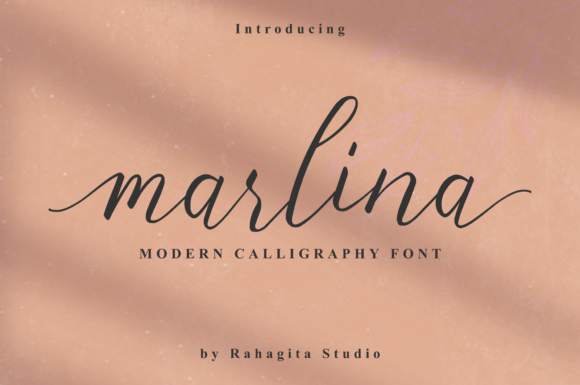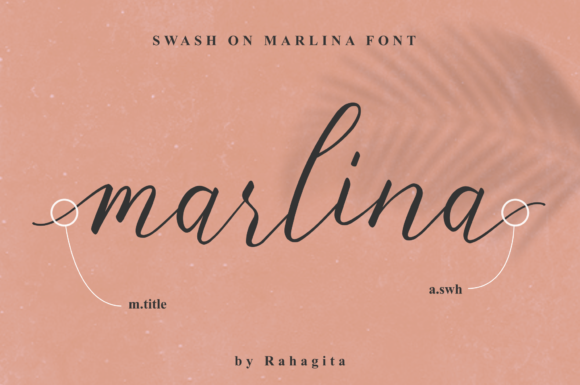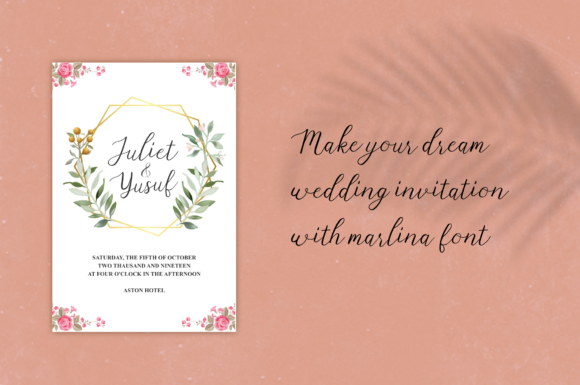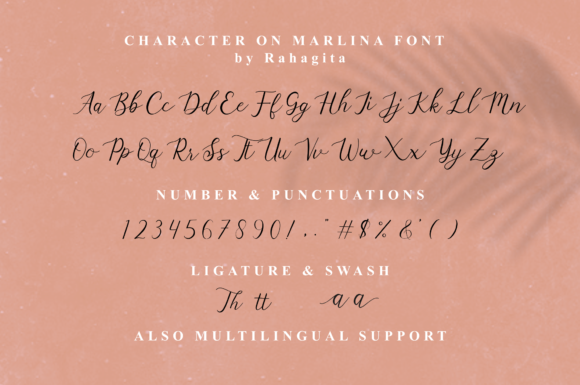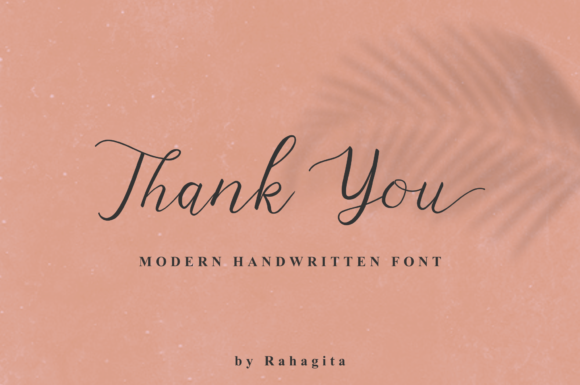
Marlina Font
About Marlina Font
With its contemporary, yet classic style, Marlina is a shining example of calligraphy art. It will look especially stunning in wedding invitations, branding, store names, and much more!